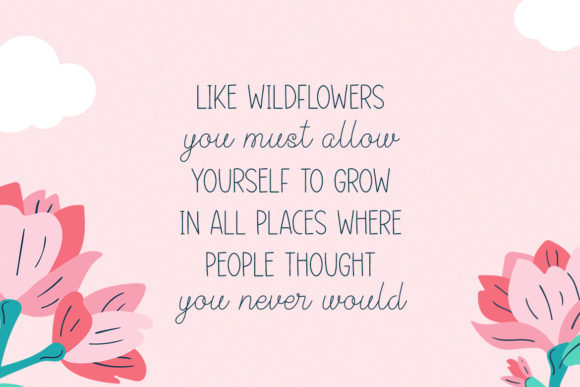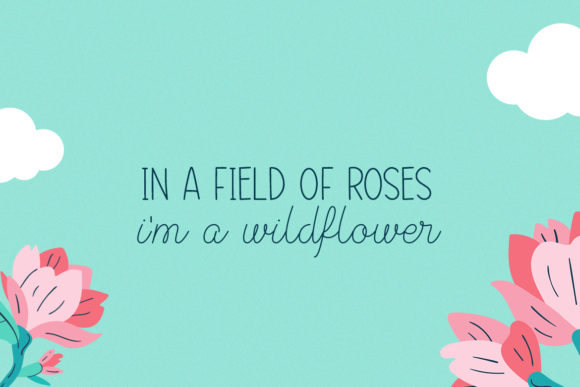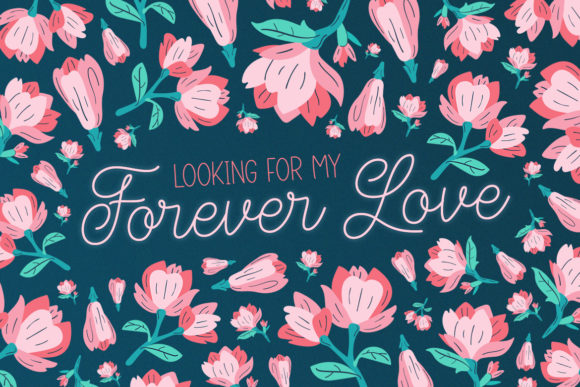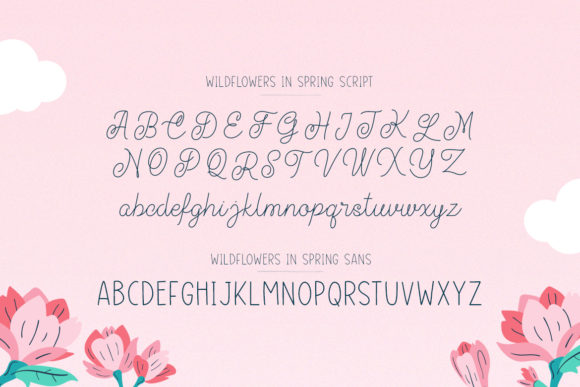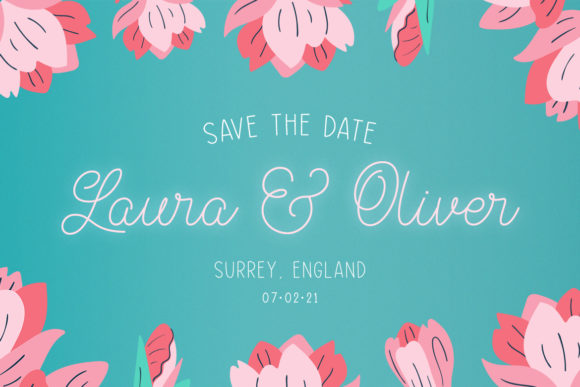
Wildflowers in Spring Font
About Wildflowers in Spring Font
Wildflowers in Spring is a lovely duo font (script and sans serif). It has a clean, thin and smooth vibe and it will be a hit for any design that you want to add it to.